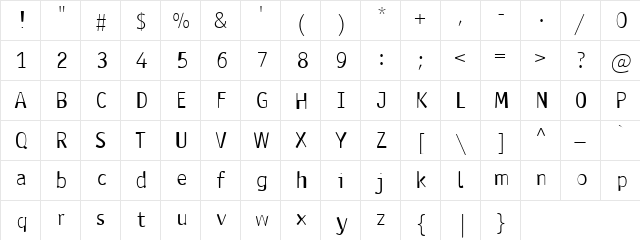
Aerobic True Regular
Design Context for Aerobic True Typeface
Aerobic True offers clean, dependable letterforms without strong stylistic allegiance, making it a practical choice for designers who need flexibility.
Pro Tip: Use Aerobic True in both headline and body roles to test its range before committing to a single application.